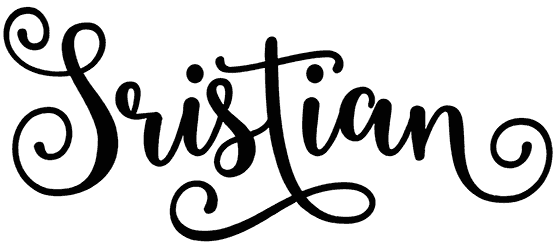
Sristian Font
You can always count on this cursive font to mesmerize your viewers. The Sristian font with its unique and delicate letters is a perfect selection for countless projects from classic to modern ones. Benefit from this whimsical font for your upcoming projects, such as a summer party flyer, and leave a lasting impact on your followers.